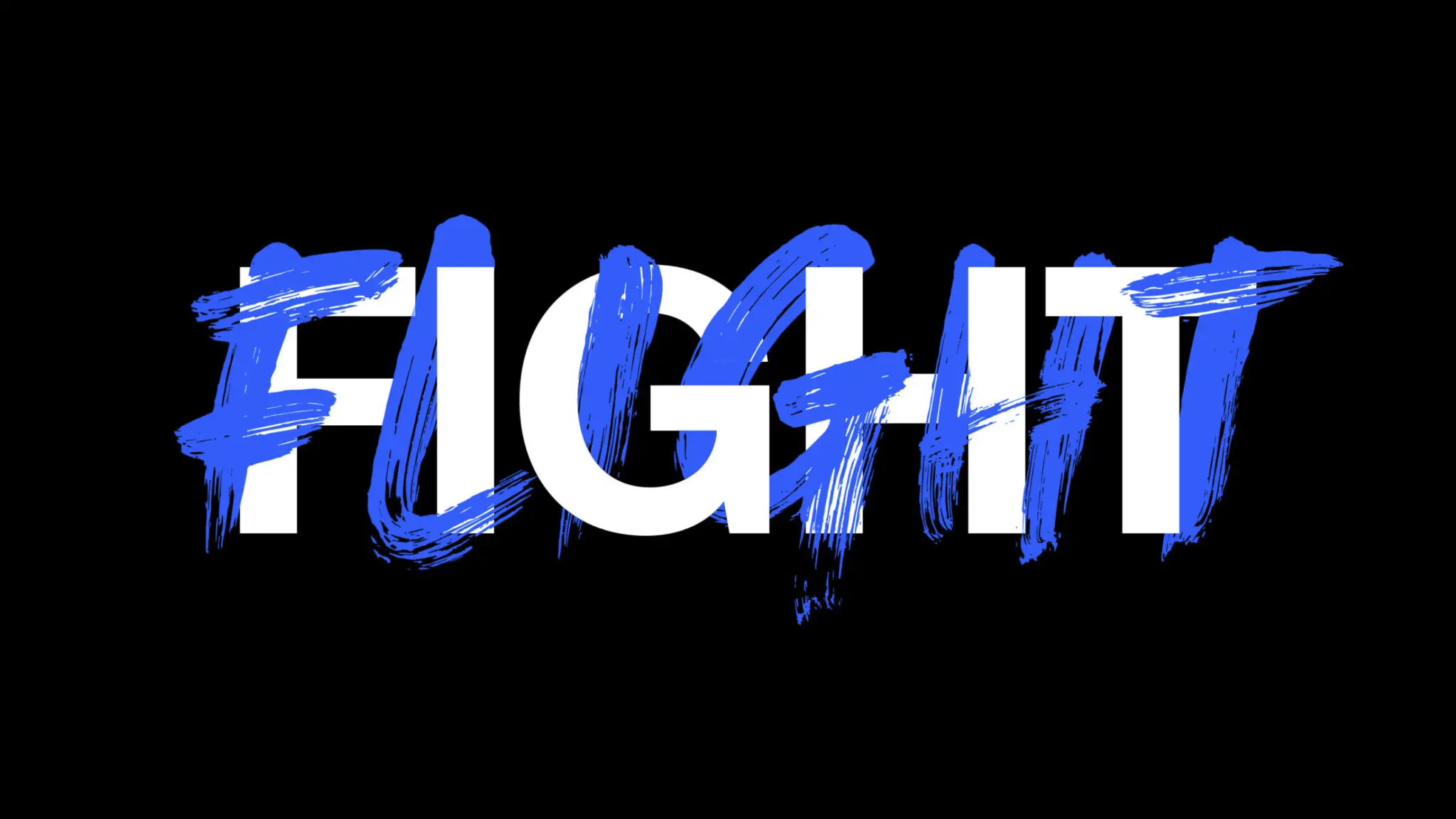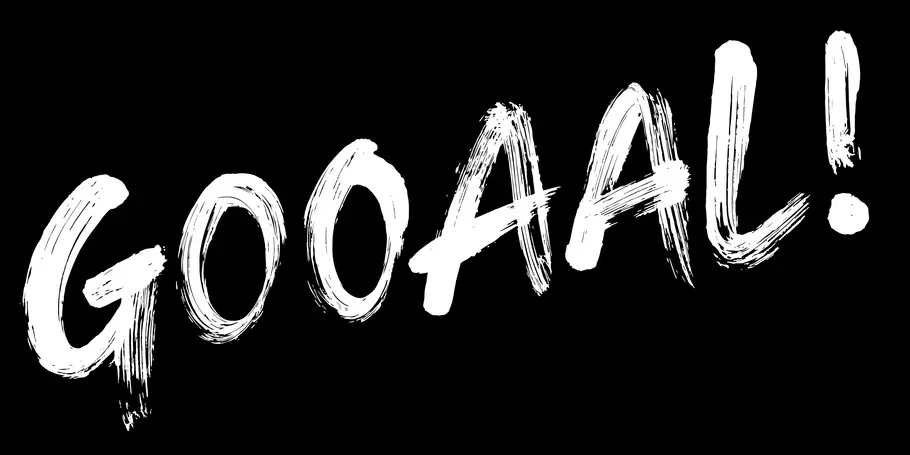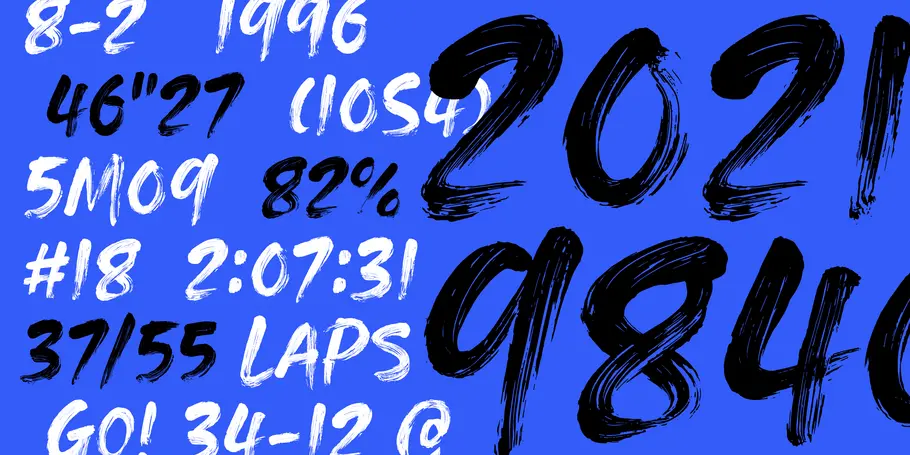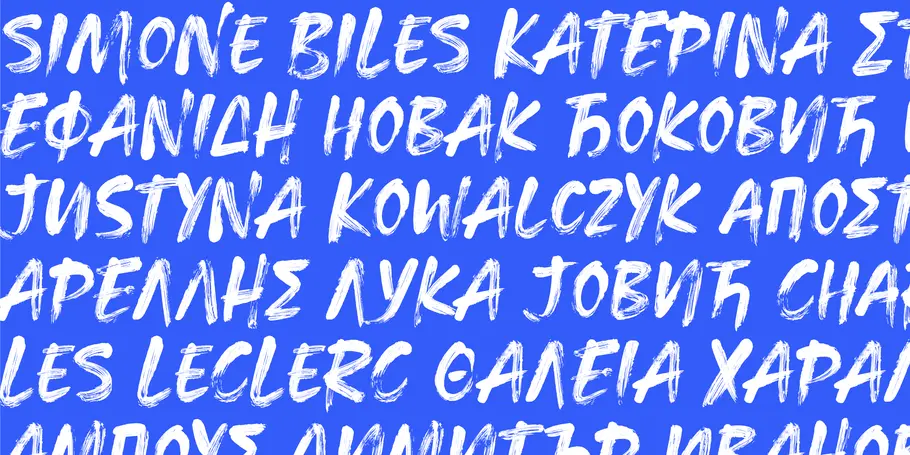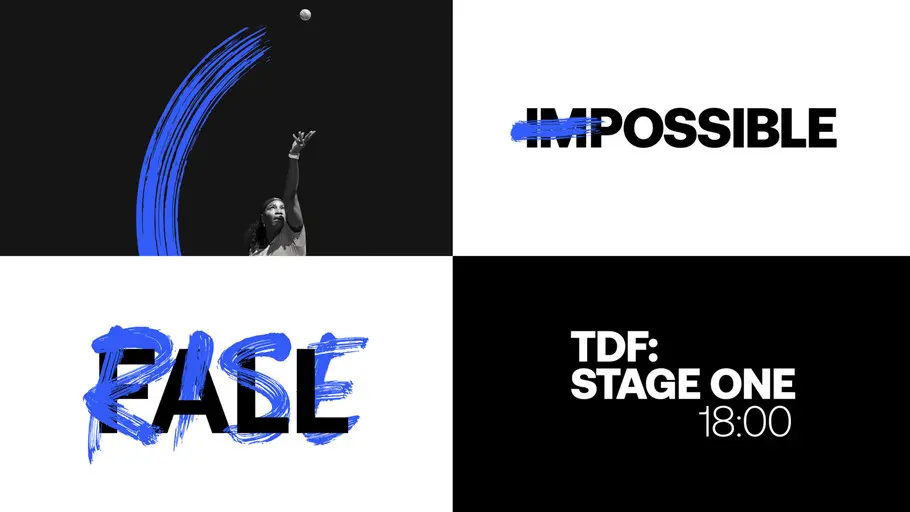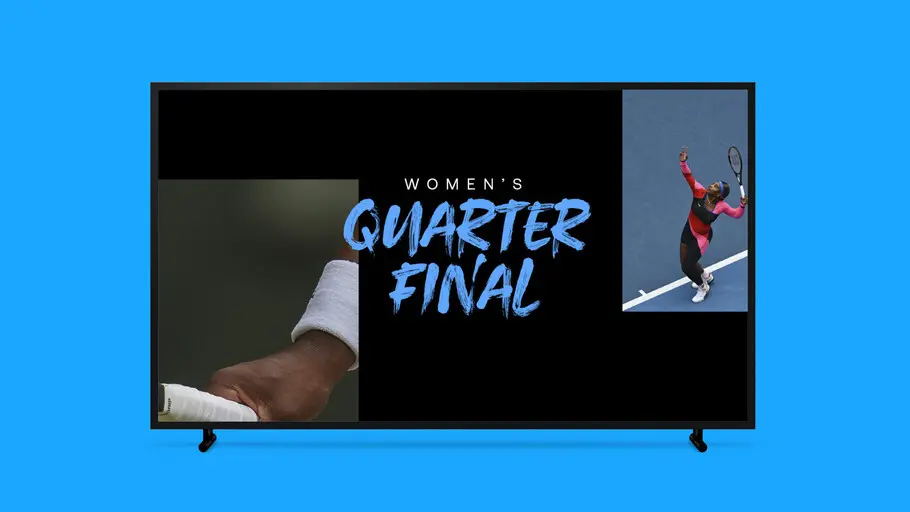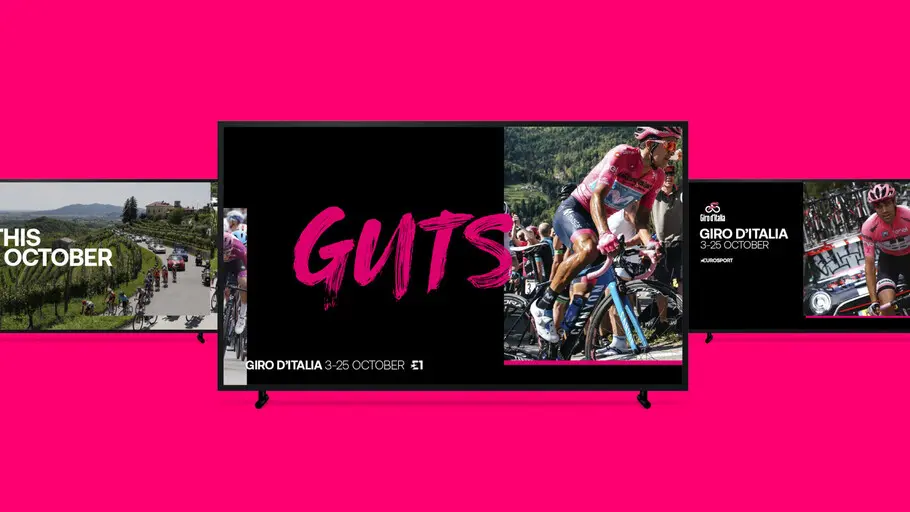
Eurosport RAW
Capturing the voice of athletes and fans.
Sport is energetic, sport is powerful, sport is both precise and gritty. Eurosport’s rebrand reflects exactly that: precision and energy in sporting endeavors. The brand called on Monotype to create a new, energetic and textural script typeface, named ‘Eurosport Raw’ to elevate their brand voice more powerfully than ever before. The new overarching sans and script type system amplifies the passion for achievement that the Eurosport brand embodies.
The new typefaces act as a steward for Eurosport, guiding fans through the world of sport. The overarching design theme allows for more cohesion and consistency across their channels and messaging.
“Our goal was always to show sport as it’s seen and experienced by the fans and players, [which is] never staged or set up – real sport that is vibrant, authentic, and relatable, with a gritty underbelly,” said Dan Capstick, Creative Director at DixonBaxi
“Eurosport Raw is a swift gesture, a painterly expression aimed at conveying the motion of competition, it’s not decorative, it’s pure action. This is dynamic type, designed to stir and align emotions to brand’” said Phil Garnham, Creative Type Director at Monotype.